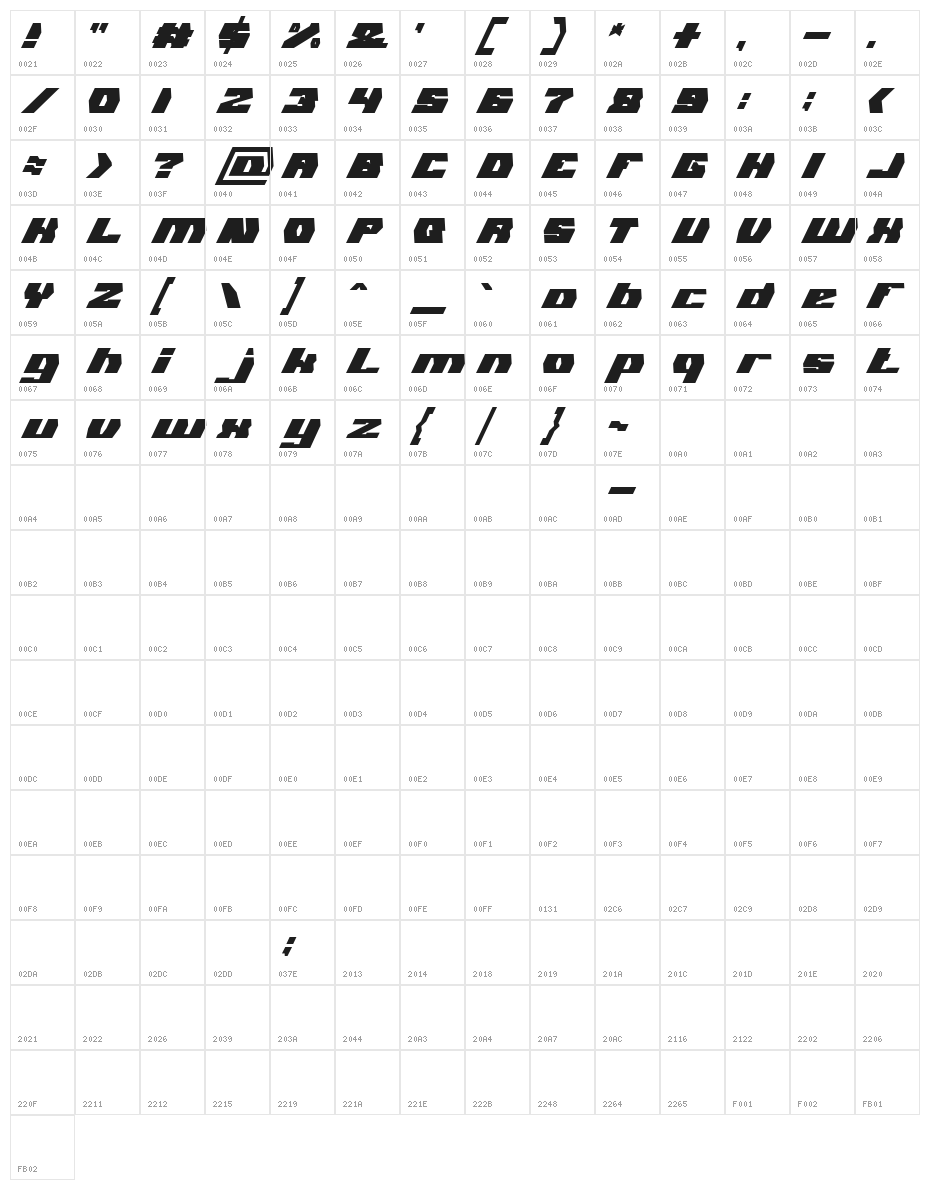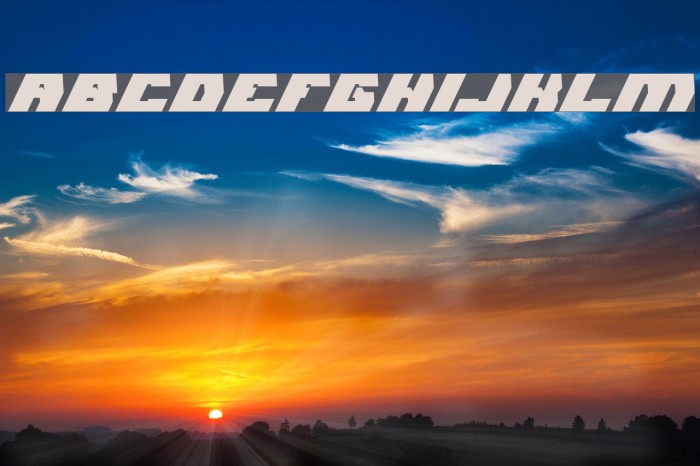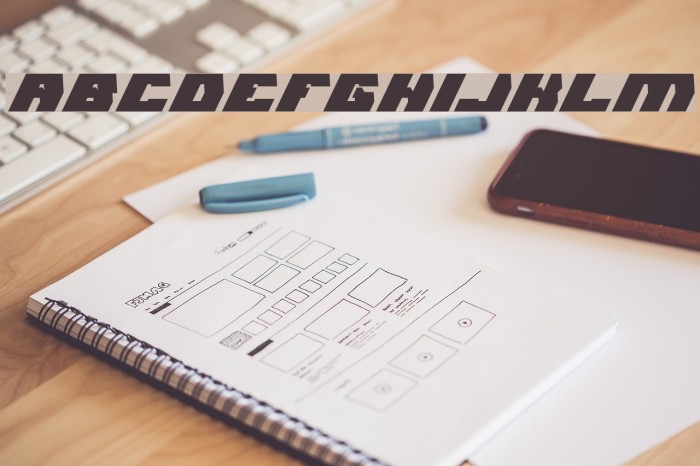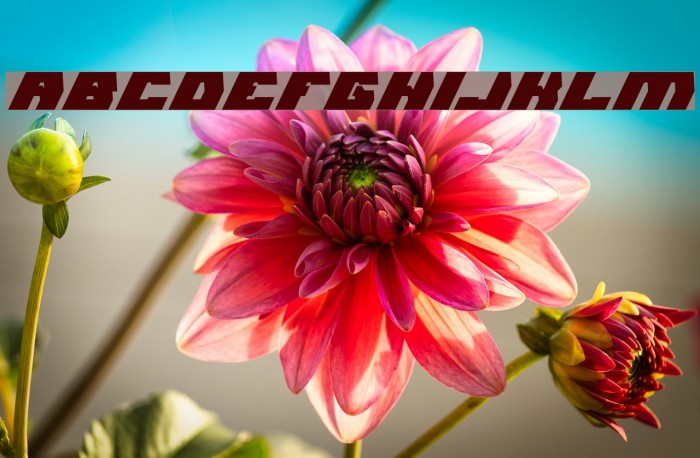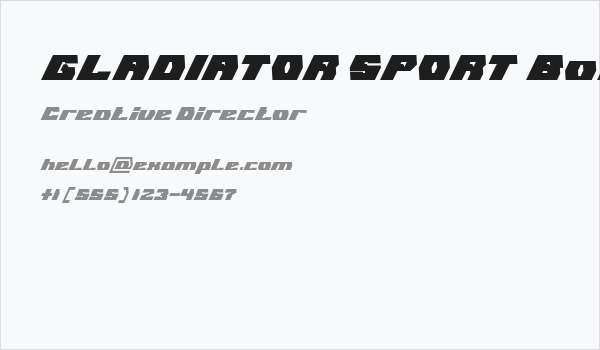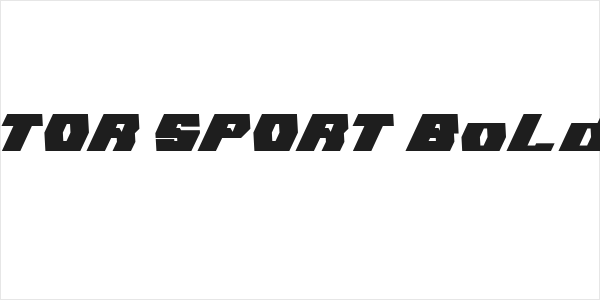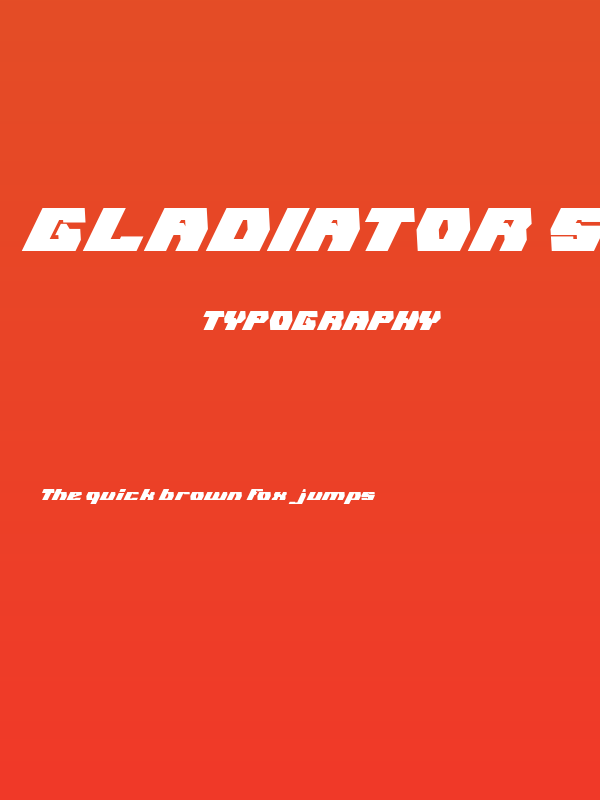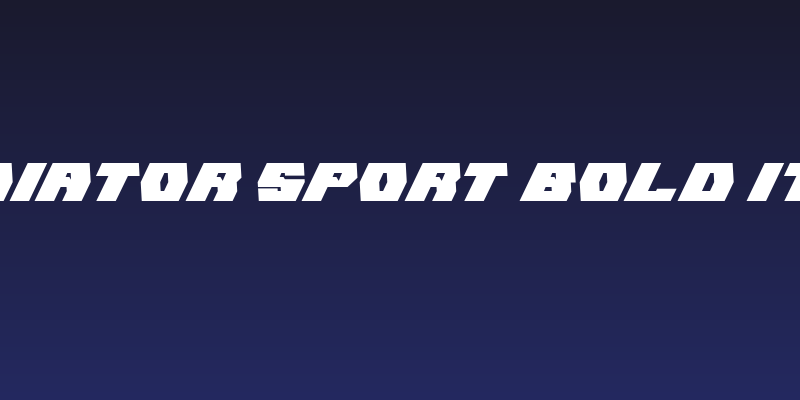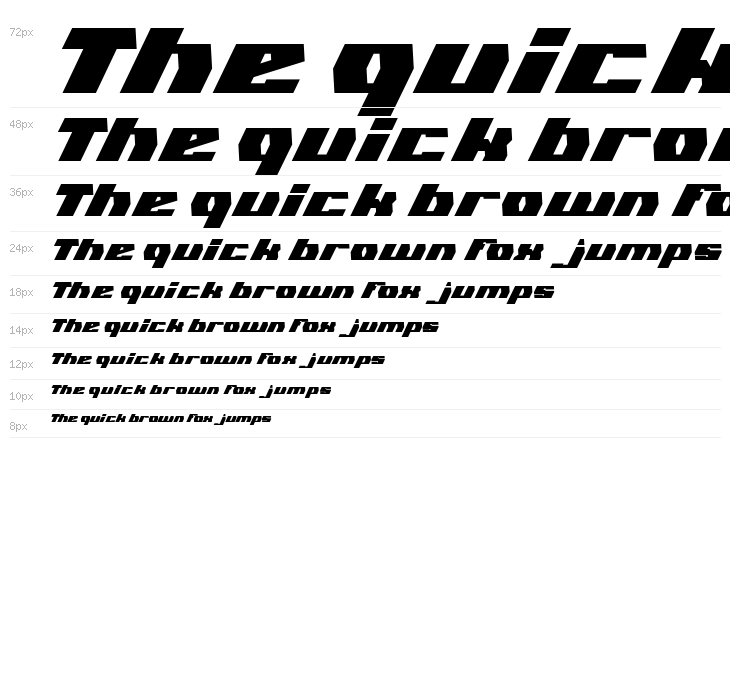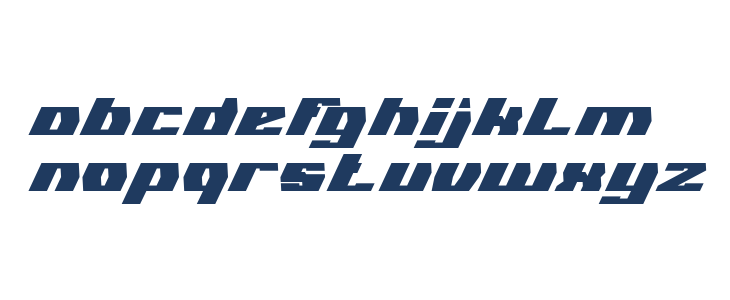
GLADIATOR SPORT Bold Italic Font
GLADIATOR SPORT Bold Italic Description
This font features a bold and italicized style with a strong, dynamic presence. The characters are angular and geometric, giving them a futuristic and sporty look. The uppercase letters are particularly striking, with sharp edges and a sense of movement. The lowercase letters maintain the same angular style, ensuring consistency throughout the typeface. Numbers and special characters are designed to match the bold and italicized theme, making them suitable for attention-grabbing designs. The font's unique style makes it ideal for projects that require a modern and energetic feel.
| Proposed Projects | Ideal for sports branding, futuristic designs, posters, and dynamic logos. |